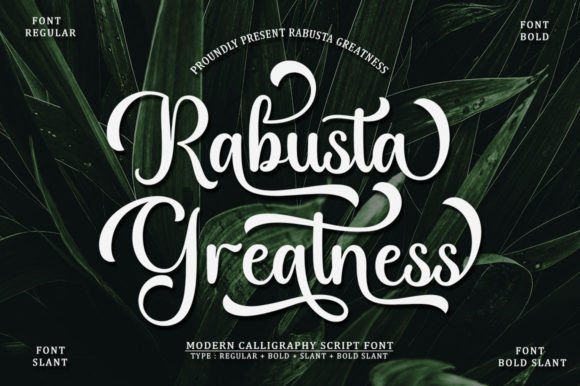
Feast your eyes on Rabusta Greatness, a captivating script font that exudes elegance and charm. Immerse yourself in its graceful curves and intricate details, designed to weave a tale of beauty and sophistication.
With its classic decorative style and modern flair, Rabusta Greatness breathes life into your creative endeavors. Let your words dance across the page, transformed into captivating expressions that command attention.
Experience the allure of smooth, flowing lines that caress the eye, inviting readers to delve deeper into your enchanting prose. Each letterform is a work of art, meticulously crafted to convey a sense of femininity, glamour, and simplicity.
Adorn your invitations with a touch of refinement, making each one a cherished keepsake. Craft elegant labels that elevate any product to new heights of desirability. Design restaurant menus that tantalize the senses, promising a culinary journey like no other.
Witness the transformative power of Rabusta Greatness as it enhances your logos, infusing them with a timeless appeal. Create fashion and makeup designs that radiate an aura of sophistication and style. Elevate your stationery to new realms of elegance, turning everyday tasks into moments of pure delight.
Dive into the world of novels, magazines, and books, where Rabusta Greatness weaves its enchanting spell. Let your words take flight, carried upon the wings of this captivating font, as they transport readers to worlds unknown.
Unleash your creativity and explore the endless possibilities that Rabusta Greatness holds. Its versatility knows no bounds, making it the perfect companion for greeting cards and wedding invitations, adding a touch of magic to life's special moments.
Discover the beauty and versatility of Rabusta Greatness, and unlock a world of creative potential. Let your imagination soar, as this exquisite font elevates your designs to new heights.